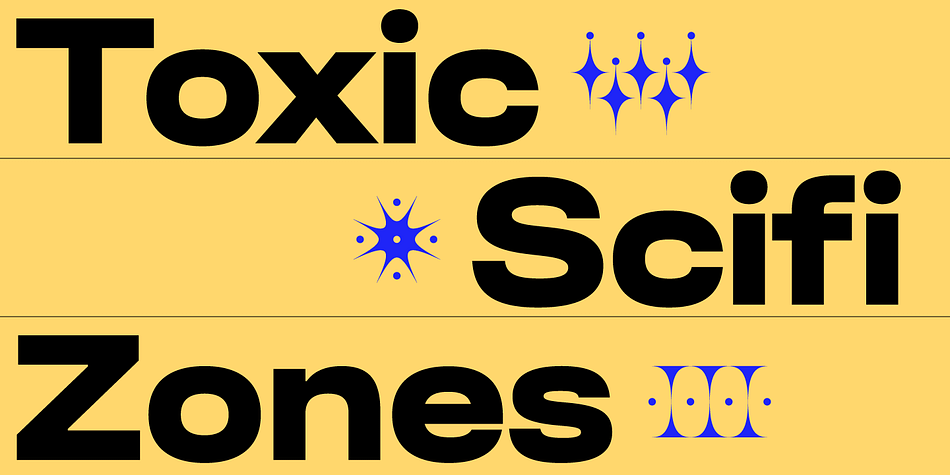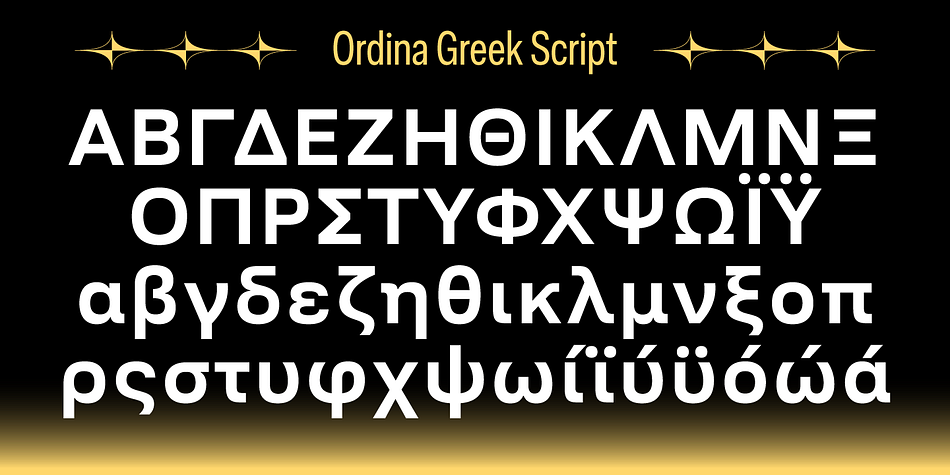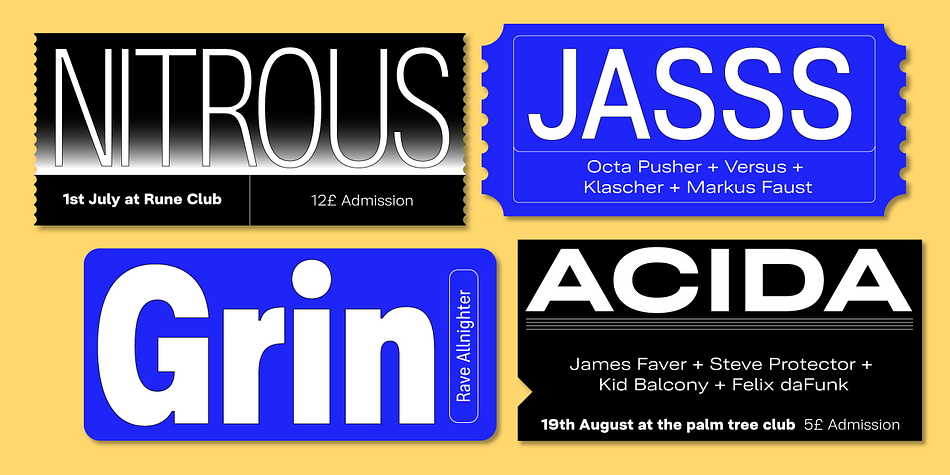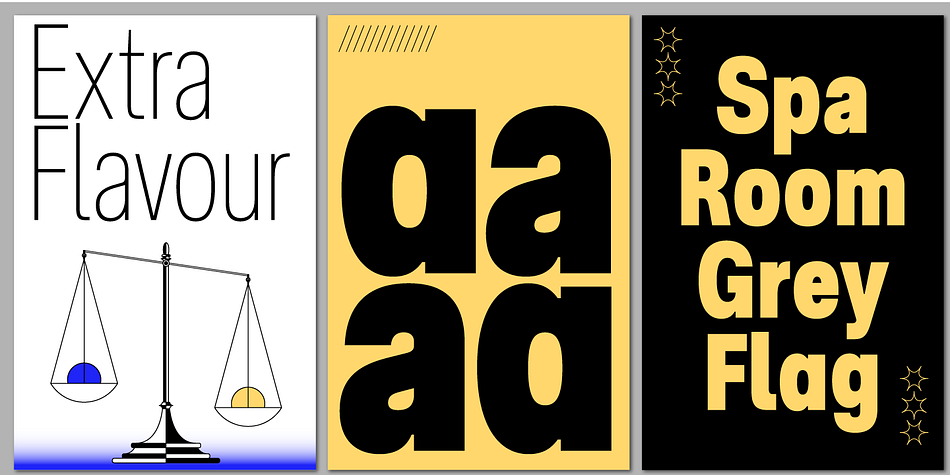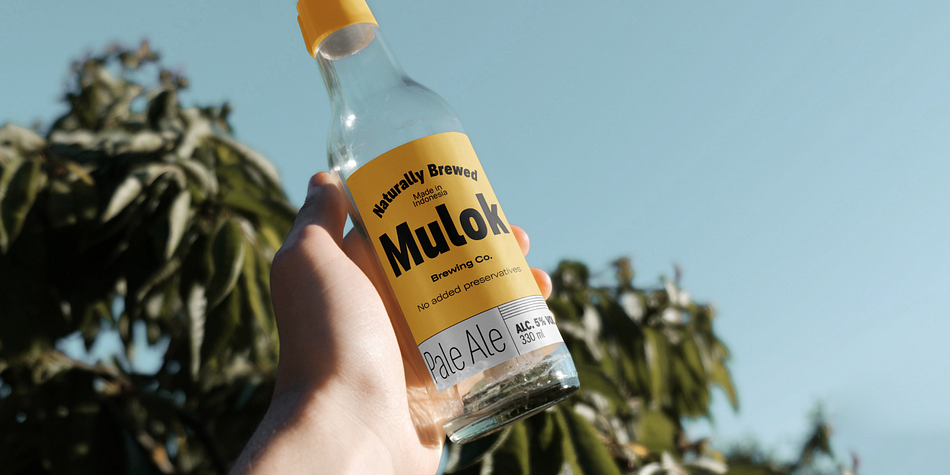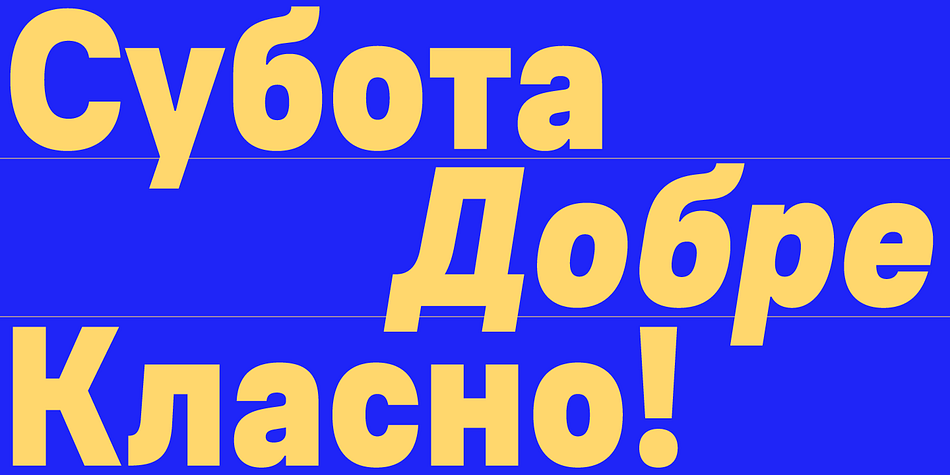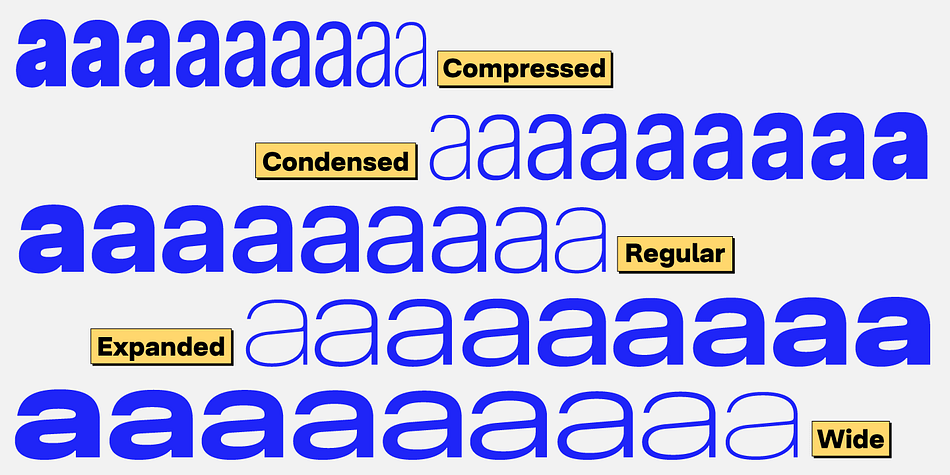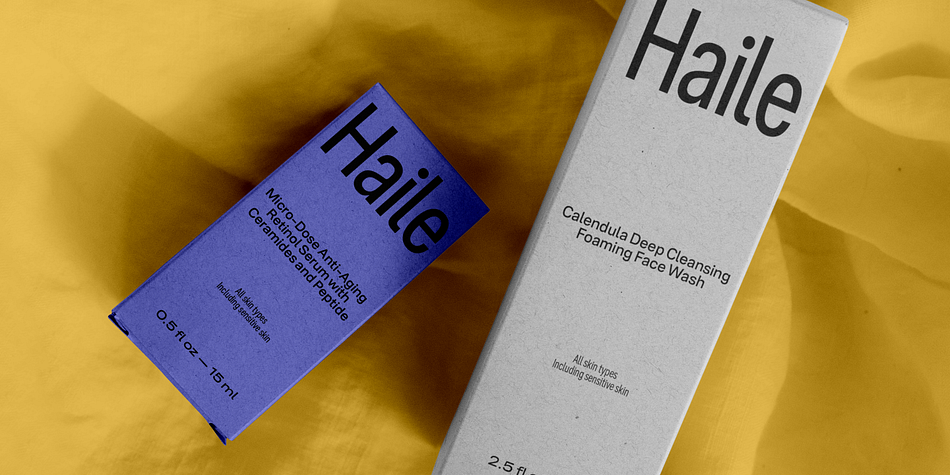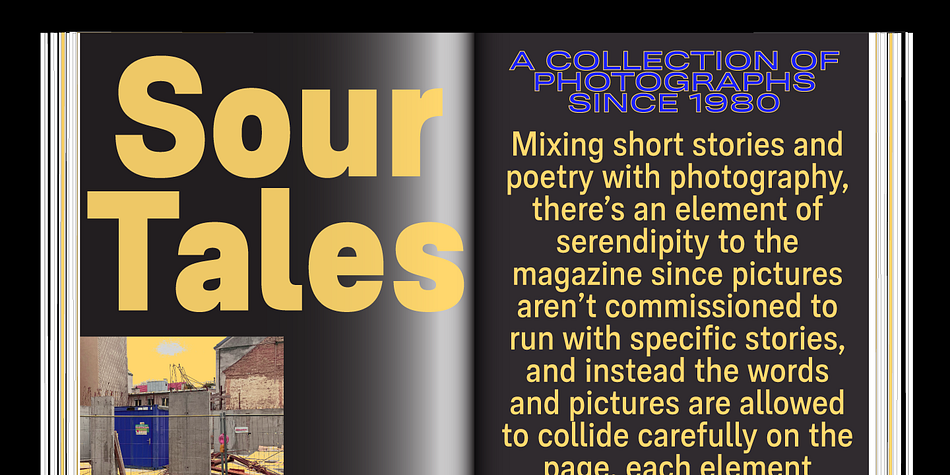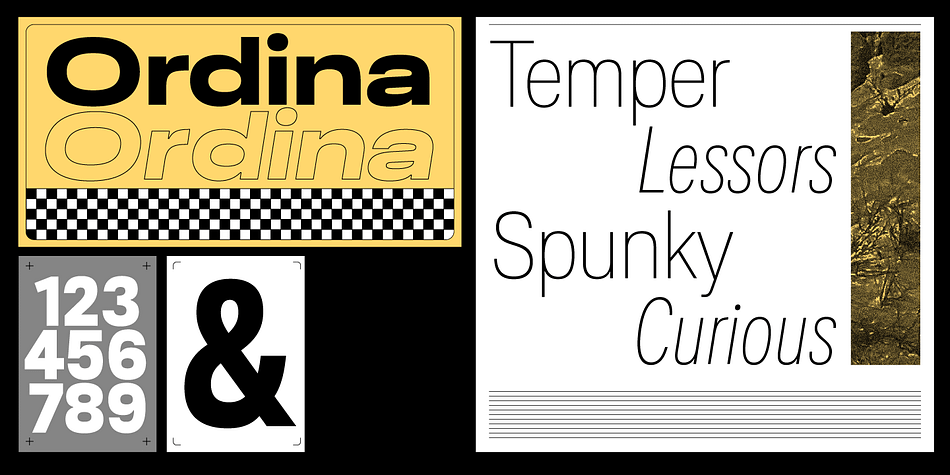
Designed by Fadhl Waliy Ul Haqq, Ordina is a sans serif font family. This typeface has ninety styles and was published by Schriftlabor.
Developed by Indonesian designer Fadhl Haqq, Ordina is a grotesque-style superfamily with no less than 90 styles to choose from. It supports Latin including Pinyin and Vietnamese, Greek and Cyrillic, complete with Bulgarian alternates. Choose from Ordina’s eight figure sets, fine-tune its appearance with stylistic alternates for key lowercase letters, and put the reliable yet stylish sans-serif workhorse to good use in virtually any typographic application.